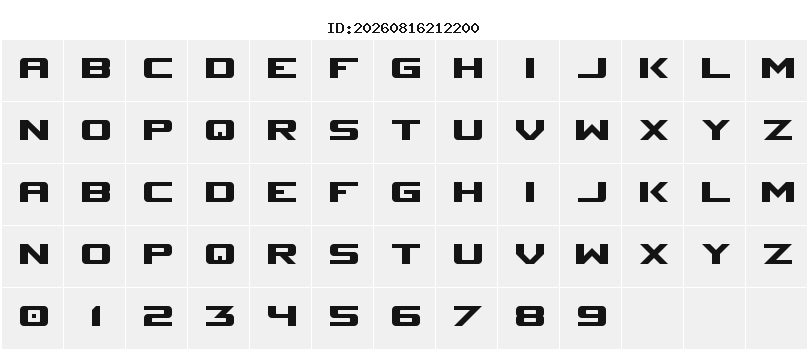
Space Marine Preview
• Font Name: Space Marine
• Font Style: Nominal
• Full Font Name: Space Marine Nominal
About Space Marine.ttf
Space Marine.ttf is a modern, elegant sans-serif font designed for ultimate readability and visual harmony. Perfect for branding, headlines, web design, and print materials.